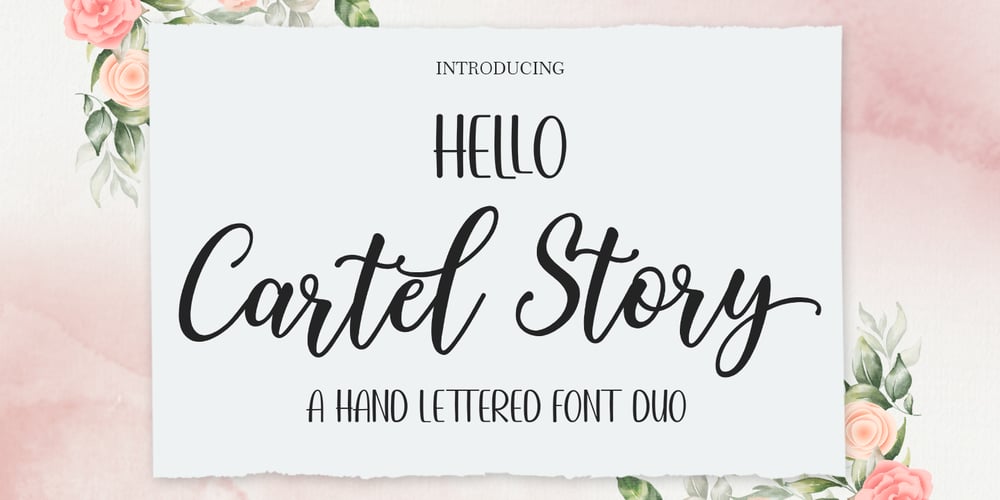
Hello Cartel Story Script Duo Font Family was designed by Muammar Kadafi and published by Attract Studio. Hello Cartel Story Script Duo contains 2 styles and family package options. Hello Cartel Story Script FONT DUO is a new modern script font with irregular base lines. Trendy and feminine style. Hello Cartel Story Script looks beautiful in wedding invitations, thank-you cards, quotes, greeting cards, logos, business cards, and more. Perfect for use in ink or watercolors. Includes initial letters and terminals, alternatives and support for many languages.Include file:Hello Cartel Story Script.OTFHello Cartel Story Sans.OTFTo activate the OpenType Stylistic alternative, you need a program that supports OpenType features such as Adobe Illustrator CS, Adobe Design & CorelDraw X6-X7, Microsoft Word 2010 or newer versions. There are additional ways to access alternatives / swash, using Character Map (Windows), Nexus Fonts (Windows), Font Books (Mac) or software programs such as PopChar (for Windows and Mac).How to access all alternative characters, using Windows Character Map with Photoshop: https://www.youtube.com/watch?v=Go9vacoYmBwHow to access all alternative characters using Adobe Illustrator:http://youtu.be/iptSFA7feQ0How to use a stylish font set in Microsoft Word 2010 or later versions:https://youtu.be/x1A_ilsBsGsNeed help or have questions, let me know. I am happy to help ๐ Thank you & Congratulations on the Design!